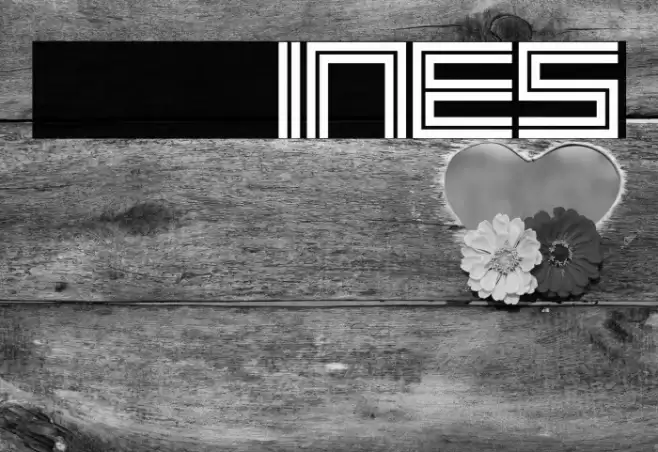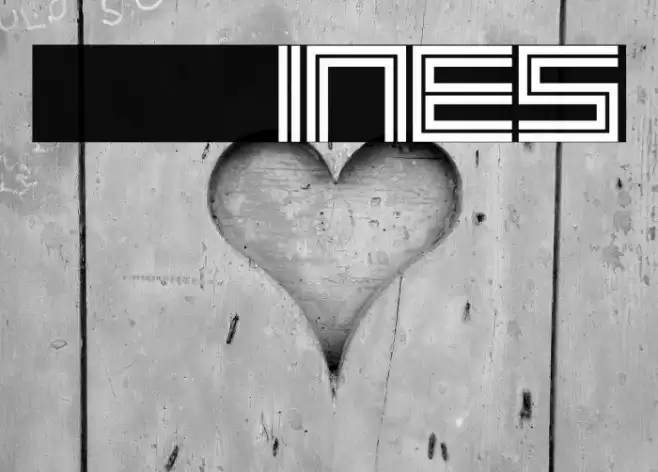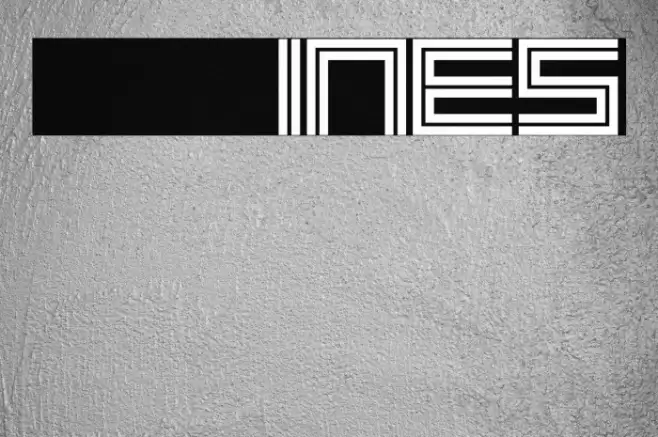
2 Lines Font
2 Lines Description
This font features a unique, geometric design with a double-line structure that creates a striking visual effect. Each character is composed of parallel lines that form a grid-like appearance, giving it a modern and futuristic feel. The uniformity and precision of the lines suggest a digital or technological theme, making it ideal for projects that require a contemporary and innovative look. The uppercase letters are bold and structured, with sharp angles and clean lines, while maintaining a consistent height and width across all characters.
A geometric, double-line font with a modern, digital aesthetic from Uncategorized fonts.
- Proposed Projects: Ideal for tech branding, digital art, futuristic posters, and modern web design.